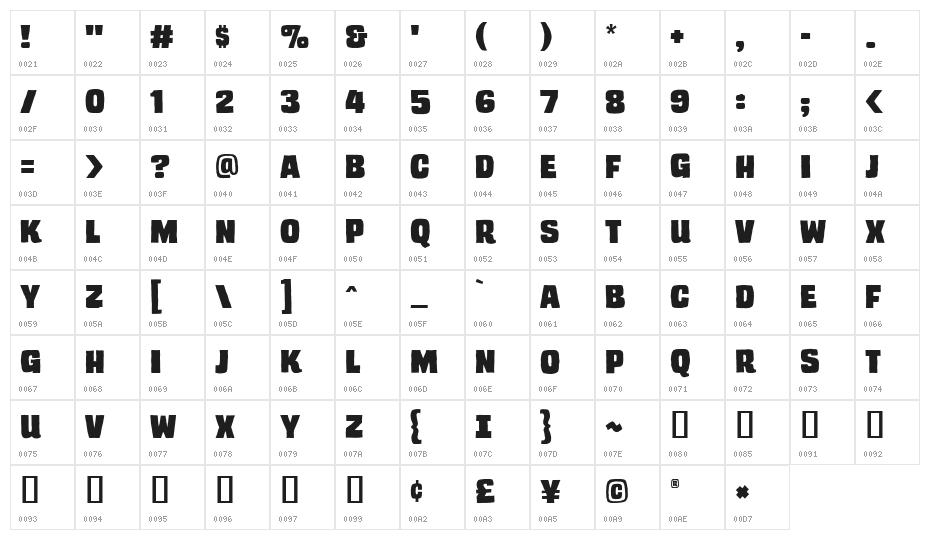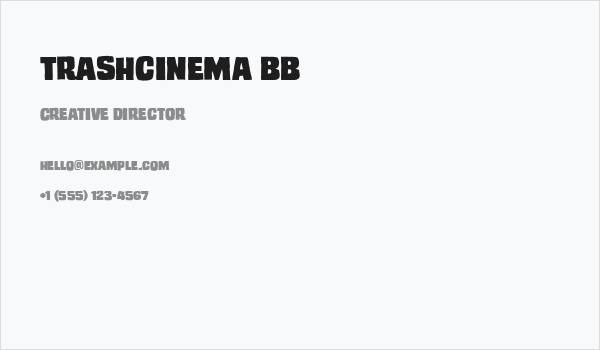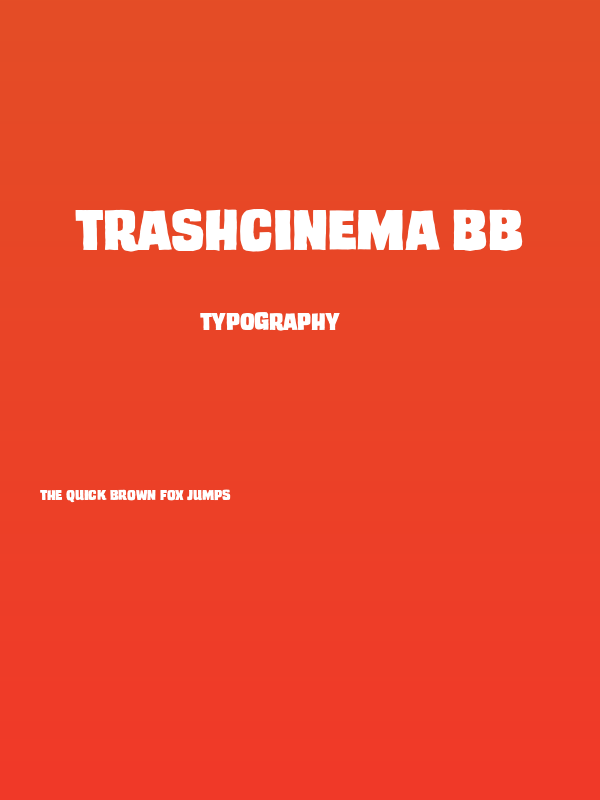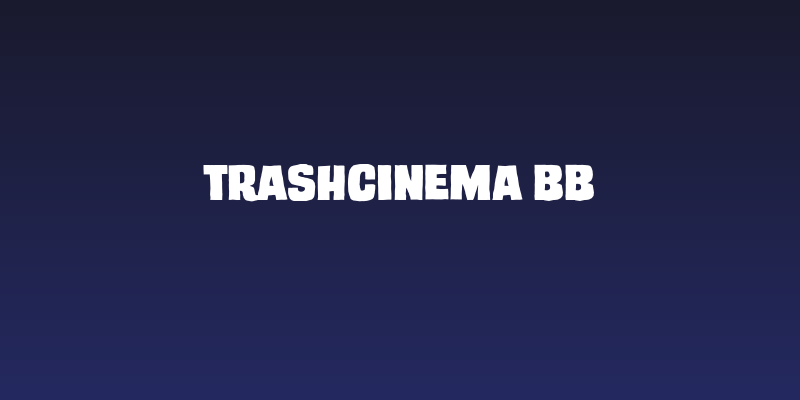
TrashCinema BB Font
TrashCinema BB Description
This font features a bold and rugged design, characterized by its thick, uneven strokes and distressed appearance. The letters have a hand-crafted feel, with irregular edges that give it a raw and edgy look. The uppercase and lowercase letters maintain a consistent weight, contributing to its strong visual impact. Numbers and special characters follow the same bold and distressed style, making it suitable for attention-grabbing designs. The font's unique style evokes a sense of vintage cinema and gritty aesthetics, perfect for projects that require a bold statement.
Overall StyleVintage, Decorative
Proposed ProjectsIdeal for movie posters, retro-themed designs, album covers, and branding that requires a bold, gritty aesthetic.